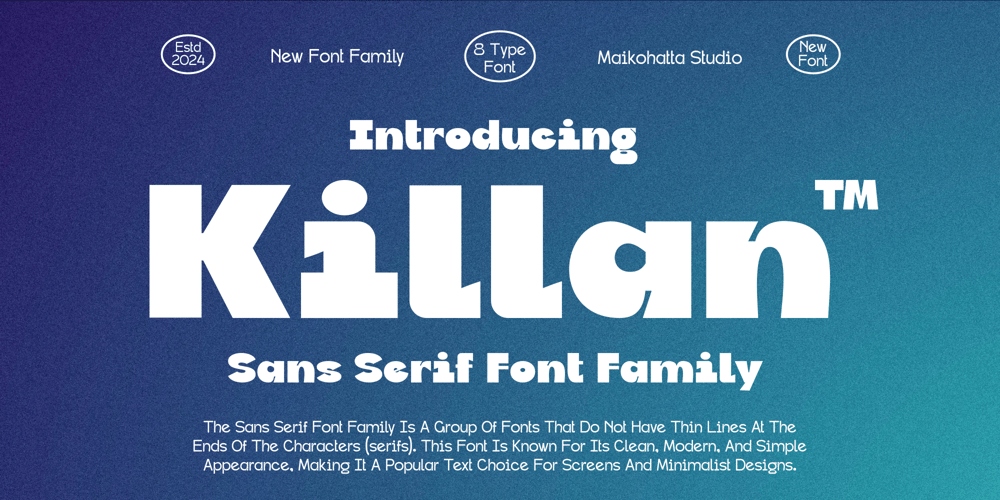
Killan Font Family was designed by Gilang Ternadho and published by Maikohatta. Killan contains 8 styles and family package options. Introducing our new product Killan – Sans Serif Font FamilyA sans-serif font family available in various styles is a highly versatile choice for graphic design and clean, modern text displays. This sans-serif font family offers flexibility in graphic design, and its various styles allow you to customize the appearance of text to suit your project’s needs. With various combinations, you can create attractive and easy-to-read text displays in various contexts.